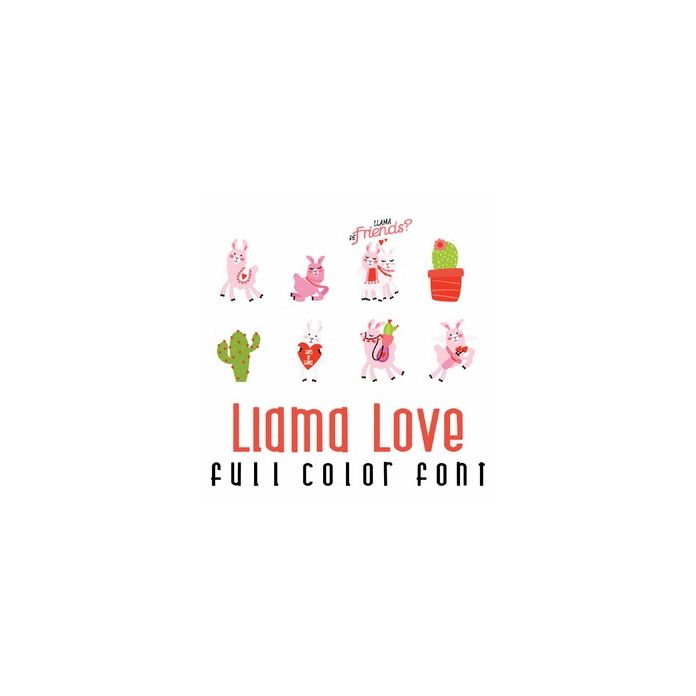
This adorable full color doodlebat font features 26 beautiful llamas ready for Valentines. Perfect for cards, crafts, gifts, decor, scrapbook pages, planner stickers and more!